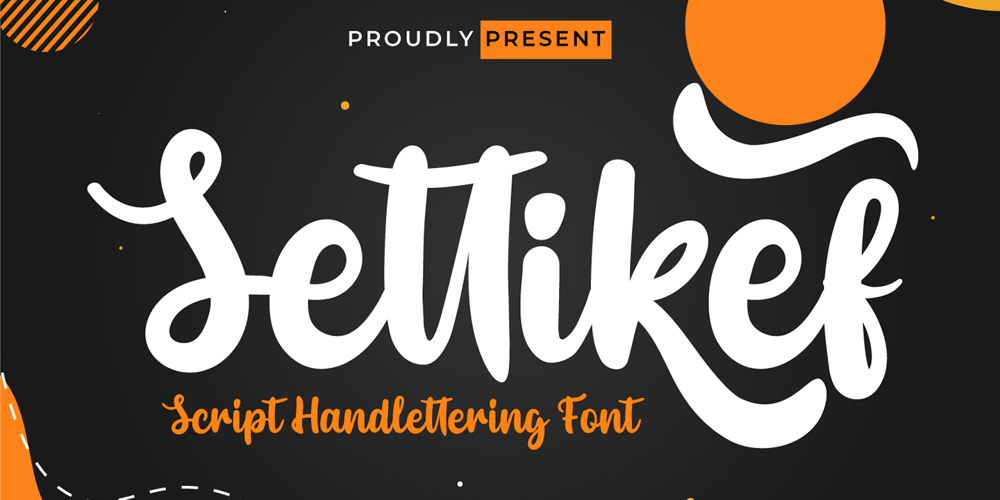
Settikef Font Family was designed by Rozikan and published by Twinletter. Settikef contains 1 styles and family package options. Settikef is a handwritten script font with cute and cute nuances but still beautiful and elegant.This font is great for you to use as a title in your designs as well as great for writing names and words. and to be sure this font is not only limited to that purpose but also very special for every need of your project, be it a formal or non-formal project, this font is still beautiful and elegant.start creating awesome designs with this font!This charming font also offers the beauty of abstract typography harmony for a wide variety of design projects, including digital natural handwriting for designs, quote designs, for social media business designs, advertisements, trademarks, food and beverage promotion banners, text, posters, a signature, and all designs require handwriting or whatever design you want.This font is equipped with uppercase, lowercase, numbers, punctuation marks, swhases and several variations on each character including multi-language.==================================================This font is best suited for open type friendly applications. How to get alternative glyphs from open type fonts: http://adobe.ly/1m1fn4YPUA Character Code – Fully accessible without additional design software.do not hesitate anymore start using this font. and Feel free to send any message you want to convey.